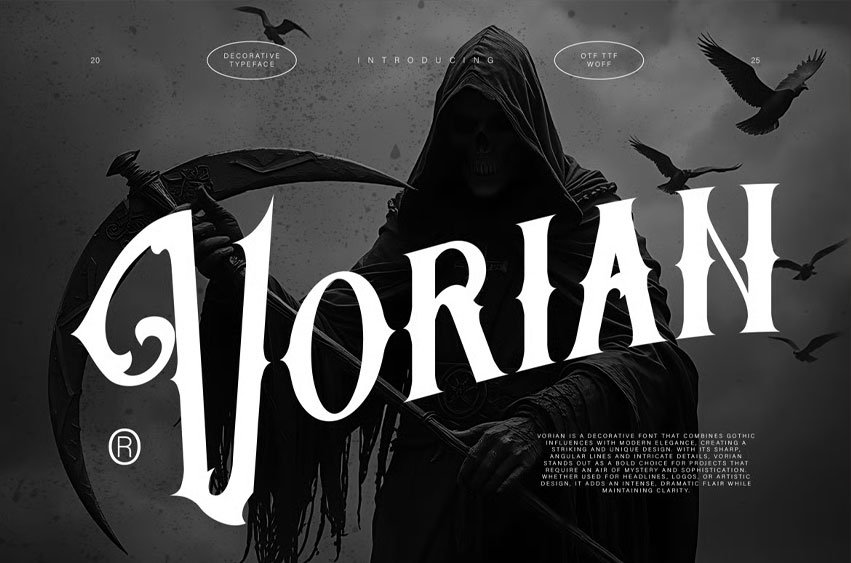
Vorian Font is a decorative font that combines gothic influences with modern elegance, creating a striking and unique design. With its sharp, angular lines and intricate details, Vorian stands out as a bold choice for projects that require an air of mystery and sophistication.
Whether used for headlines, logos, or artistic design, it adds an intense, dramatic flair while maintaining clarity.